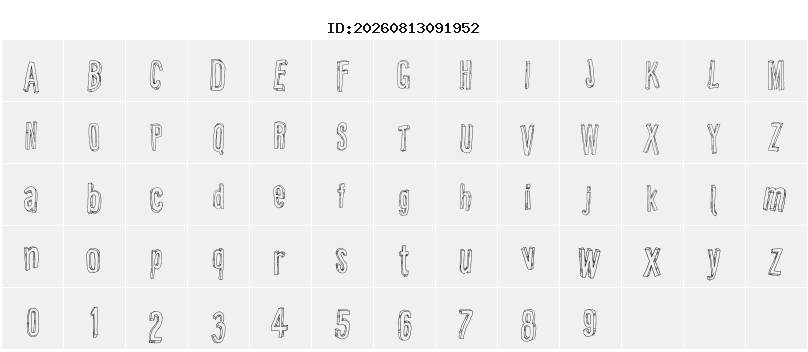
• Font Name: Relief BD
• Full Font Name: Relief BD
• Version: Version 1.00 September 2, 2012, initial release
• Designer: Galdino Otten
• Manufacturer: Galdino Otten
About Relief BD.ttf
Relief BD.ttf is a modern, elegant sans-serif font designed for ultimate readability and visual harmony. Perfect for branding, headlines, web design, and print materials.